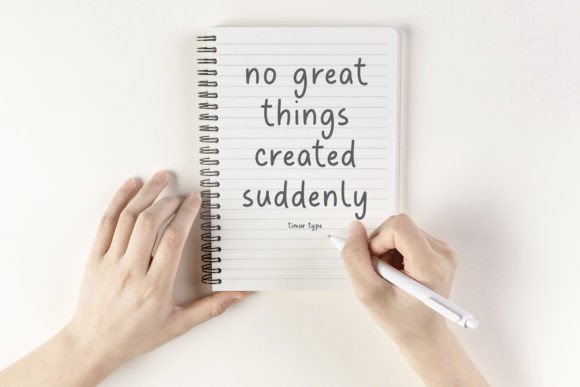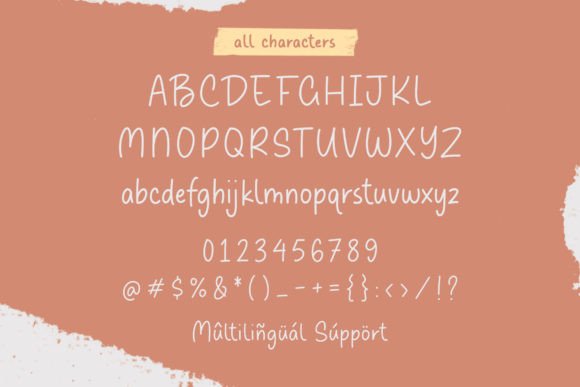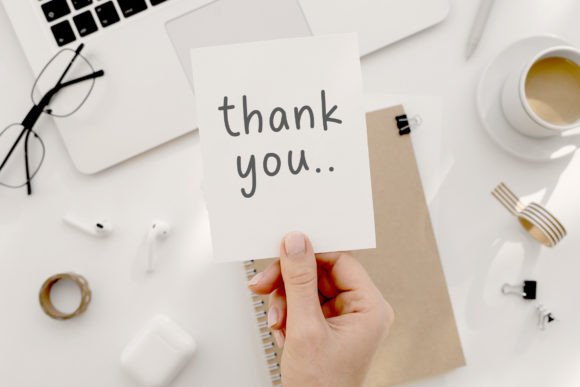
Introduction to Radiant Kingdom Font Font
Fonts play a crucial role in design, and the Radiant Kingdom Font font is a typeface that brings both character and versatility to any project. Whether you’re working on a branding project, a website, or a print design, the Radiant Kingdom Font font offers a unique style that can elevate your work.
Radiant Kingdom is a Quotable Handwritten Font This font enhances your words with a font that is not just handwritten but also a charming masterpiece.
Each stroke weaves a story of intrigue, making each quote a journey through the art of expression Quotable and irresistible – let your writing leave an indelible mark.
Key Features of Radiant Kingdom Font Font
Why Choose Radiant Kingdom Font Font?
The Radiant Kingdom Font font is more than just a typeface – it’s a design tool that helps you communicate your message with style and clarity. Its unique character set and versatile design make it suitable for a wide range of applications, from elegant invitations to bold headlines.
With its carefully crafted letterforms and balanced proportions, the Radiant Kingdom Font font ensures readability and visual appeal across all mediums.
What makes Radiant Kingdom Font font special?
The Radiant Kingdom Font font stands out with its unique design, exceptional readability, and versatility across various design applications.